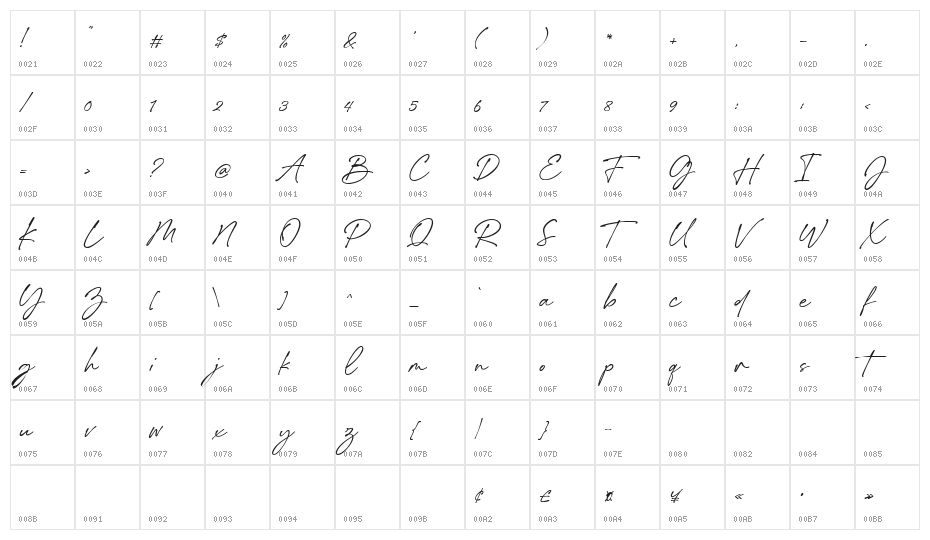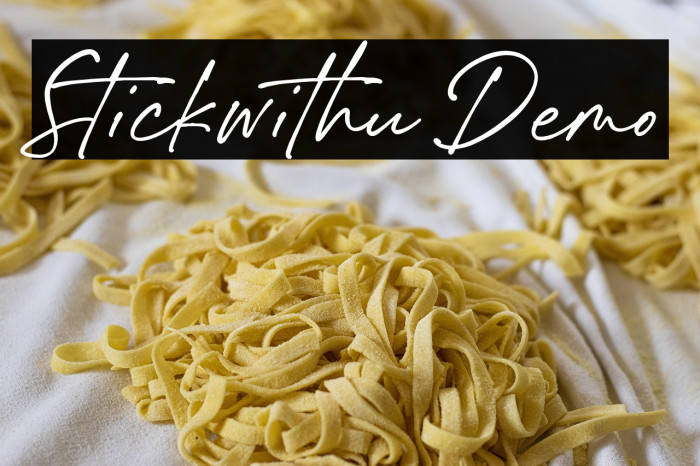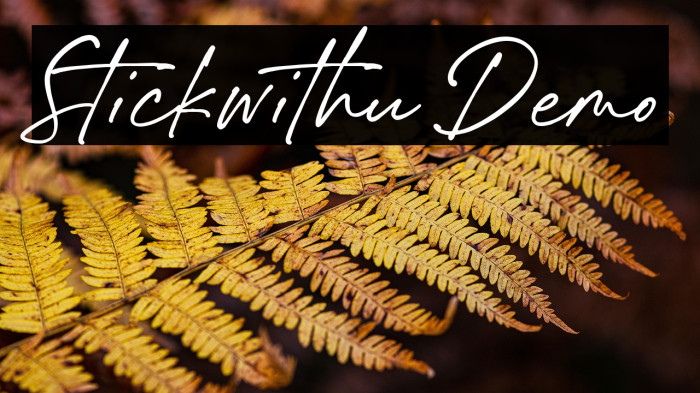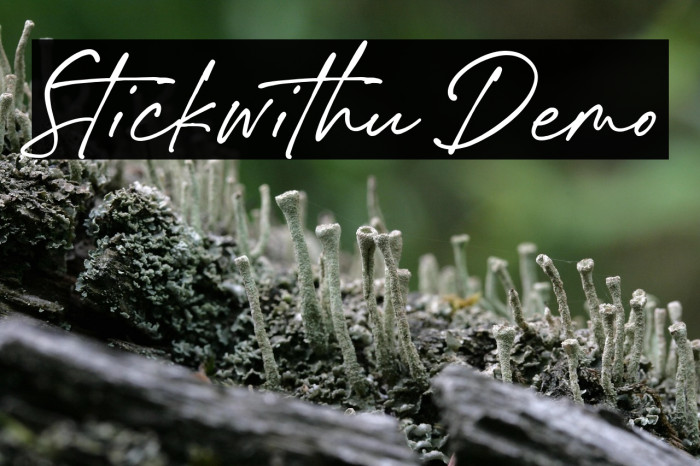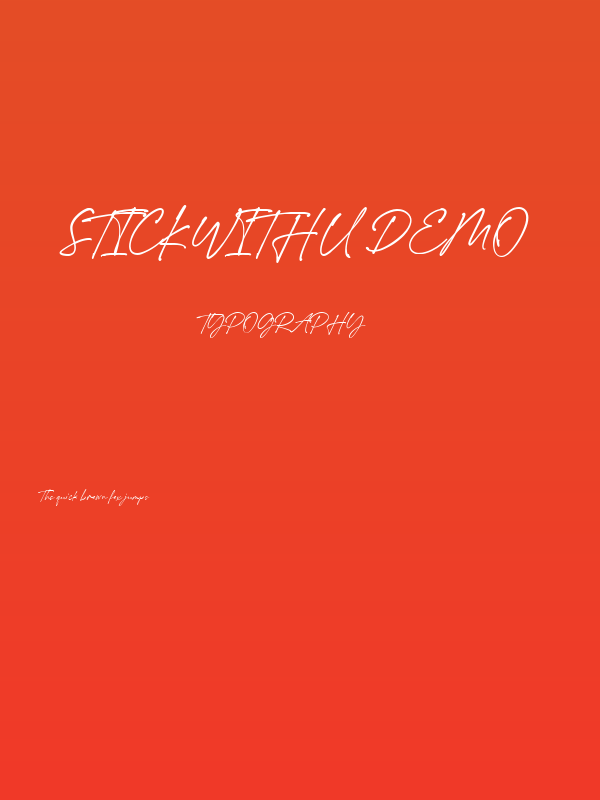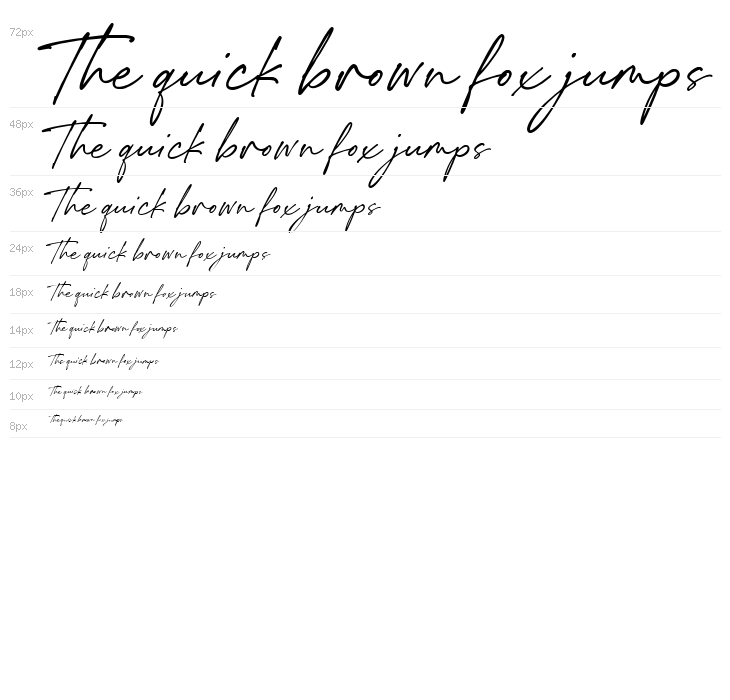
Stickwithu Demo Font
Stickwithu Demo Description
A flowing, cursive script font with a handwritten style, featuring smooth, connected letters and a casual elegance.
| Proposed Projects | Invitations, greeting cards, personal branding, social media graphics. |